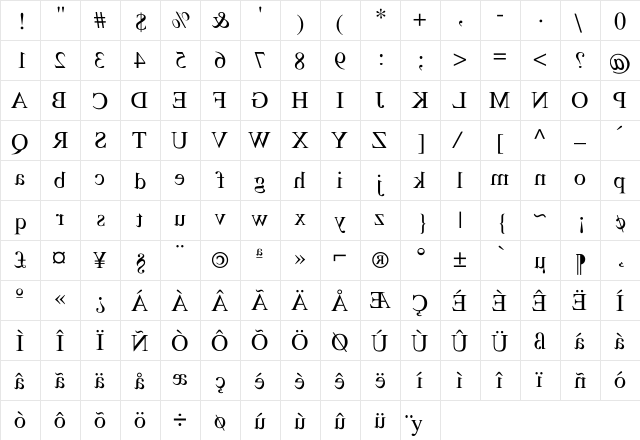
Times-Mirror Regular
Design Context for Times-Mirror Typeface
Times-Mirror takes a measured approach to typography — its balanced proportions and neutral character make it a reliable workhorse for both digital and print work.